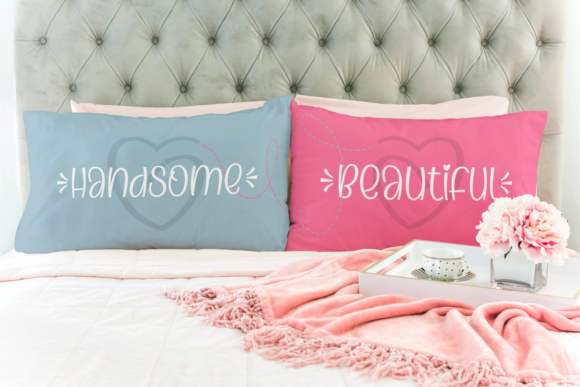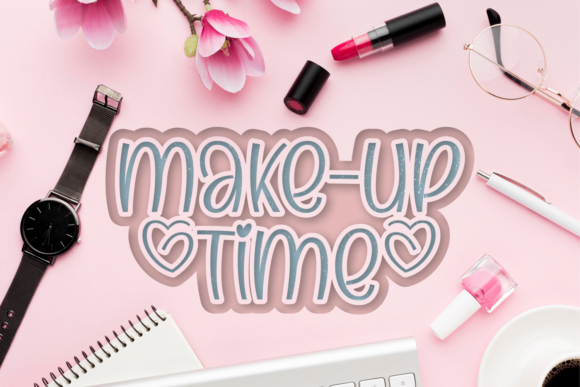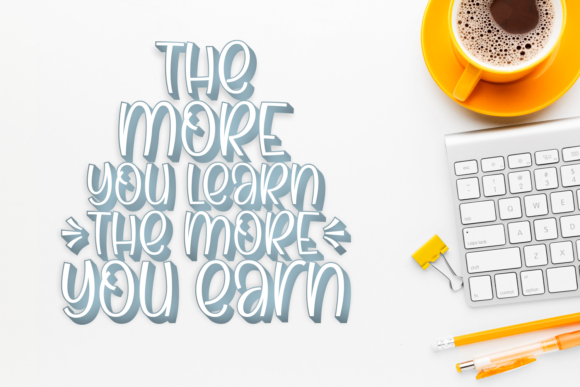
Introducing Chilly Shine Font: Add a Joyful Touch to Your Designs
Are you tired of using the same old fonts in your designs? Do you want to add a playful and quirky touch to your creative projects? Look no further than Chilly Shine Font! This cute and charming display font is perfect for designers and crafters who want to make their work stand out from the crowd.
What is Chilly Shine Font?
Chilly Shine Font is a unique and eye-catching display font that is sure to add a joyful touch to your designs. Its quirky and playful style makes it perfect for a variety of creative projects, from handmade crafts to digital designs. Whether you’re a professional designer or a crafty hobbyist, Chilly Shine Font is a great addition to your font collection.
Key Features of Chilly Shine Font
- Cute and Quirky Style: Chilly Shine Font has a playful and charming style that is sure to add a smile to your face.
- Display Font: This font is perfect for headlines, titles, and other display text.
- Easy to Read: Despite its playful style, Chilly Shine Font is easy to read and understand.
- Versatile: Chilly Shine Font can be used for a variety of creative projects, from digital designs to handmade crafts.
How to Use Chilly Shine Font
Chilly Shine Font is easy to use and can be incorporated into your designs in a variety of ways. Here are a few ideas to get you started:
- Handmade Crafts: Use Chilly Shine Font to add a personal touch to your handmade crafts, such as greeting cards, scrapbook pages, and DIY gifts.
- Digital Designs: Add Chilly Shine Font to your digital designs, such as social media graphics, blog posts, and website headers.
- Signs and Banners: Use Chilly Shine Font to create eye-catching signs and banners for events, parties, and promotions.
Benefits of Using Chilly Shine Font
There are many benefits to using Chilly Shine Font in your designs. Here are a few:
- Adds a Playful Touch: Chilly Shine Font adds a playful and quirky touch to your designs, making them more engaging and fun.
- Stand Out from the Crowd: With Chilly Shine Font, your designs are sure to stand out from the crowd and grab attention.
- Easy to Pair with Other Fonts: Chilly Shine Font is easy to pair with other fonts, making it versatile and easy to use.
Tips for Getting the Most out of Chilly Shine Font
Here are a few tips for getting the most out of Chilly Shine Font:
- Use it Sparingly: Use Chilly Shine Font sparingly to add emphasis and create visual interest.
- Pair it with Other Fonts: Pair Chilly Shine Font with other fonts to create a unique and interesting look.
Chilly Shine Font is a cute and quirky display font that is sure to add a joyful touch to your designs. With its playful style and versatility, it’s perfect for designers and crafters who want to make their work stand out from the crowd. Whether you’re creating handmade crafts or digital designs, Chilly Shine Font is a great addition to your font collection.